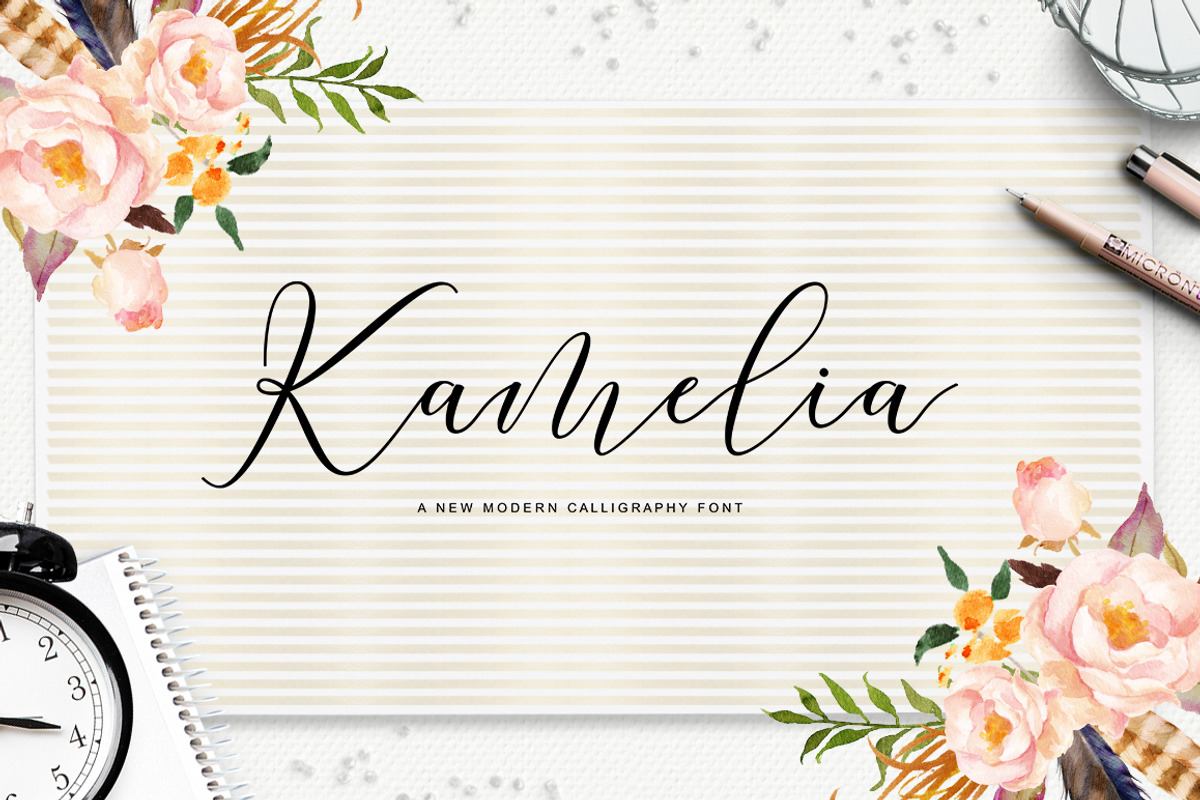
Kamelia Script Free Download is a romantic and elegant handwritten typeface, perfect for adding a graceful touch to any design. With its flowing curves and sophisticated style, Kamelia is ideal for wedding invitations, branding, social media graphics, product packaging, and heartfelt quotes.
This script font features smooth letter connections, ligatures, stylistic alternates, and full multilingual support—giving you the freedom to customize your typography with flair. It works flawlessly on both Mac and Windows platforms and integrates seamlessly with all major design software.